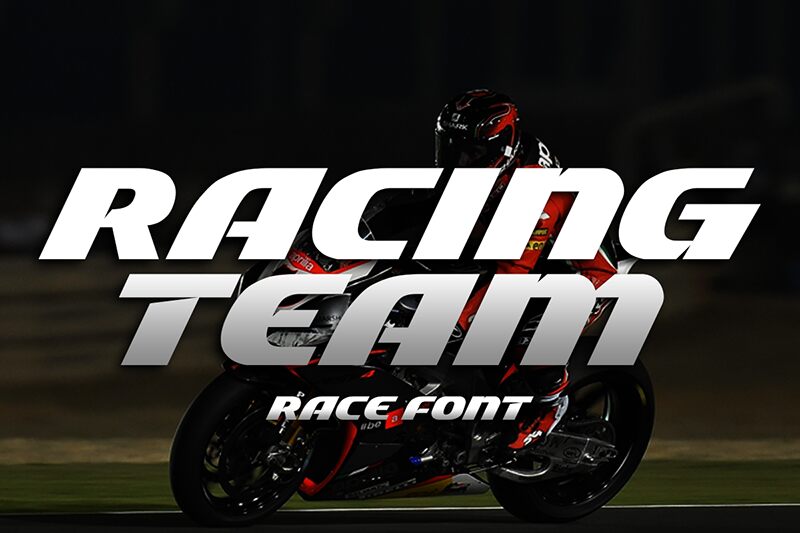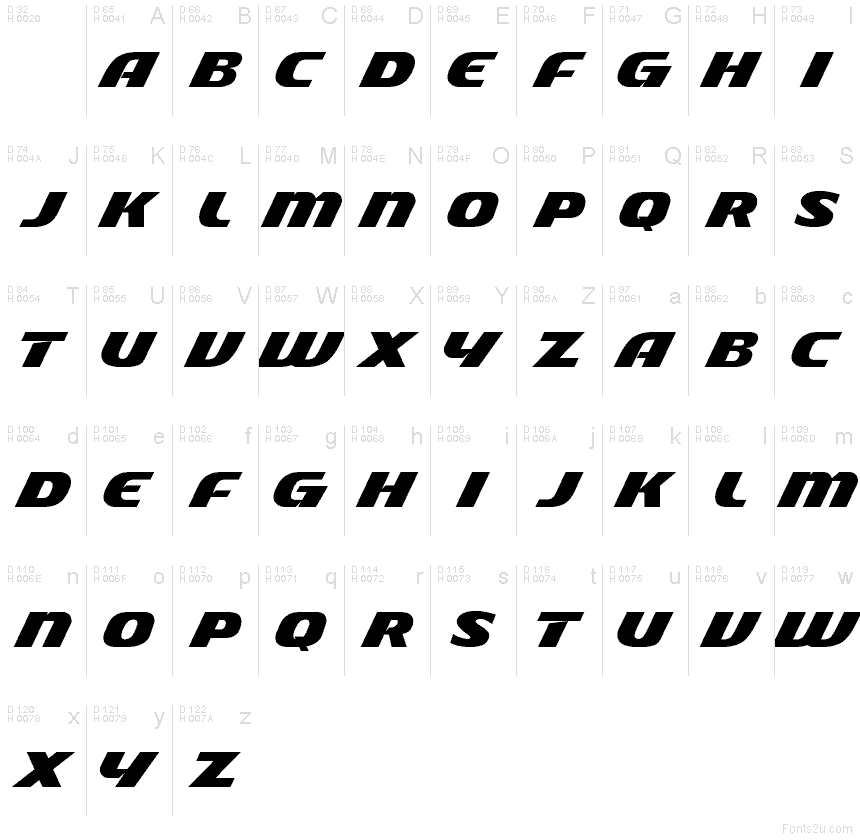
Racing Team font by Mocha Frappuccino is a futuristic, expanded bold font that will surely make an impression. The display typeface mixes sporty, modern, and energetic features to get its unique style. Further visual distinction is added by the italicized letters which present a bolder appearance through their sleek endings.
This free futuristic font reminds us of Formula 1 and car racing events. So feel free to use it in your stadium banners and electronic advertising boards designed for sporting events. Also in posters, flyers, t-shirts, and even fan merch edits inspired by famous drivers like Lewis Hamilton or Max Verstappen!